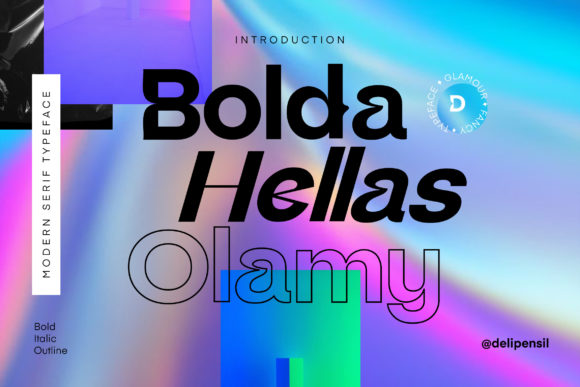
In the world of digital expression, where words dance across screens, there's a new font that exudes boldness and authenticity - Bolda Hellas Elamy. This captivating display font is a masterpiece crafted by delipensil, a visionary designer who understands the power of typography.
Bolda Hellas Elamy is not just a font; it's an experience. Its thick, confident strokes command attention, while its classic serif details add a touch of elegance. Whether you're designing a poster, a flyer, or any printed material, this font will make your words shine.
With Bolda Hellas Elamy, you'll unleash your creativity and create designs that resonate with your audience. Its versatility knows no bounds, allowing you to craft headlines that demand attention, titles that intrigue, and body text that flows effortlessly.
Imagine your words taking center stage, dressed in the bold and beautiful attire of Bolda Hellas Elamy. Your messages will radiate confidence, your ideas will captivate, and your designs will leave a lasting impression.
So, embark on this typographic journey with Bolda Hellas Elamy. Discover the endless possibilities of expression and elevate your designs to new heights. Let your words dance with boldness and authenticity, and let the world witness the power of your creations.